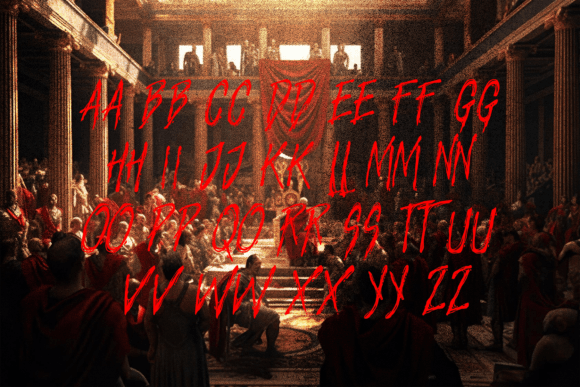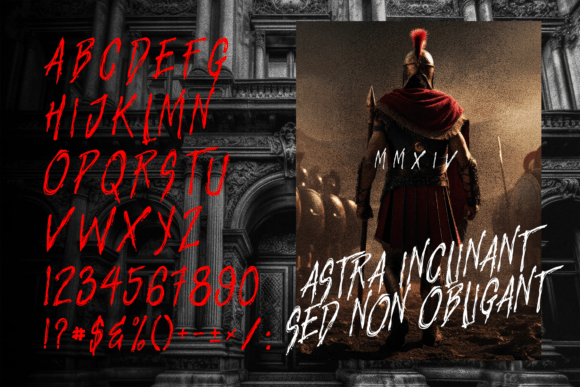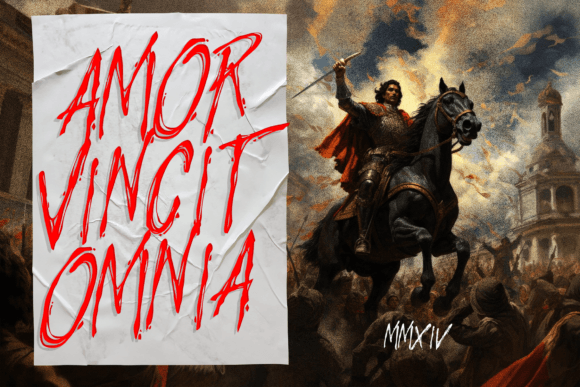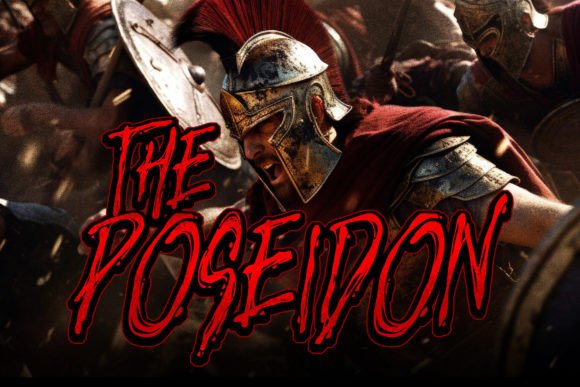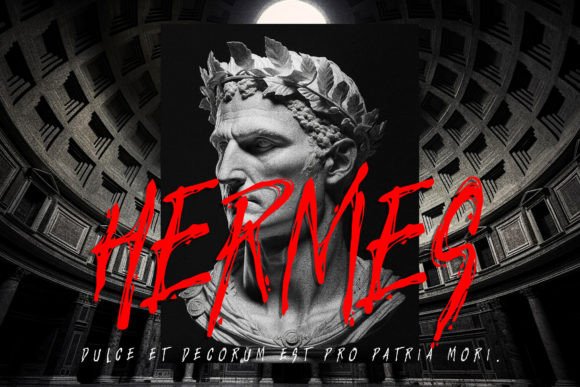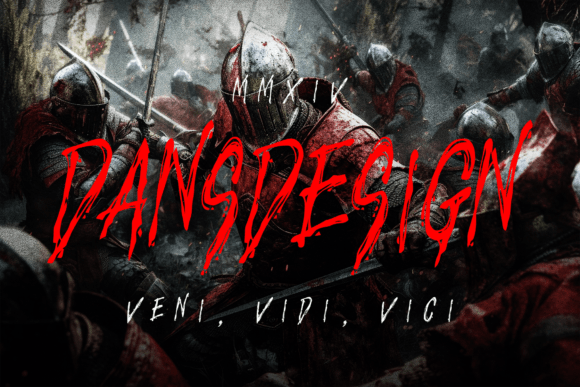
Introduction to Dameter Font
Dameter is an eerie and chilling display typeface that captures the essence of horror and suspense.
With jagged edges and twisted letterforms, it evokes a sense of dread and mystery, making it ideal for Halloween-themed designs, movie posters, and spooky headlines Dameter sends shivers down the spine.